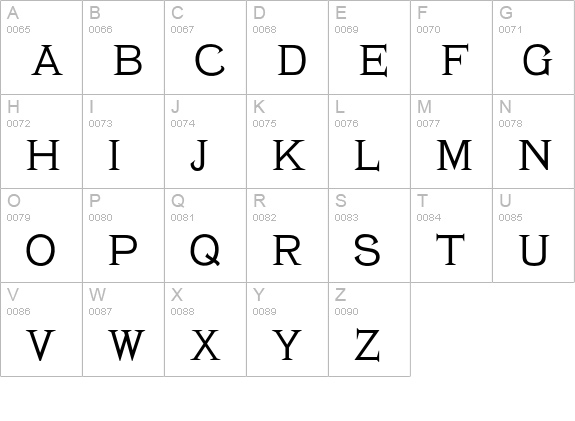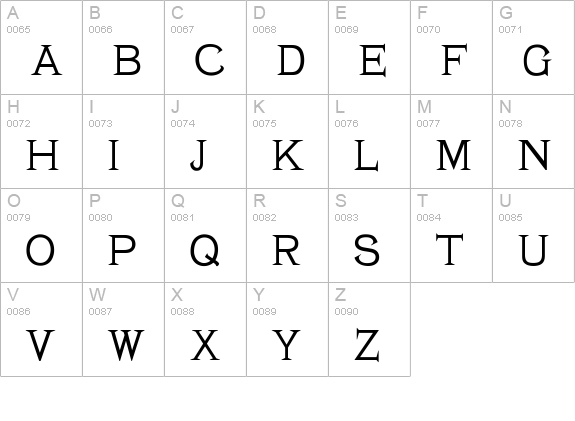
Cleveland Font Details
Cleveland font is a modern and versatile typeface that exudes sophistication and elegance. Its sleek lines and balanced proportions make it perfect for a wide range of design projects, from branding to editorial content. The font features a unique blend of classic and contemporary elements, giving it a timeless appeal that will never go out of style. What sets Cleveland font apart is not just its aesthetic appeal, but also the fact that it is completely free to download. Yes, you read that right - this high-quality typeface can be yours at no cost! Simply head over to FontsMarket.com and grab your copy today. Whether you're a seasoned designer looking to add a new font to your collection or a novice in need of a stylish option for your next project, Cleveland font has got you covered. Download it now and elevate your designs with this exceptional typeface.